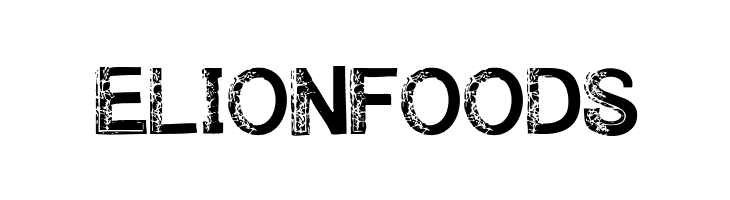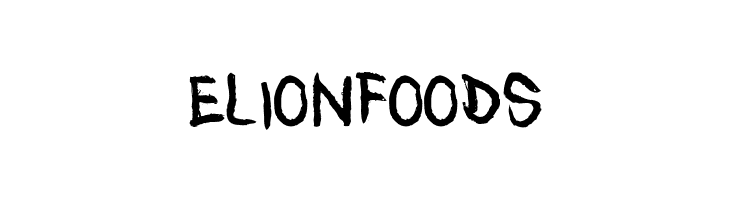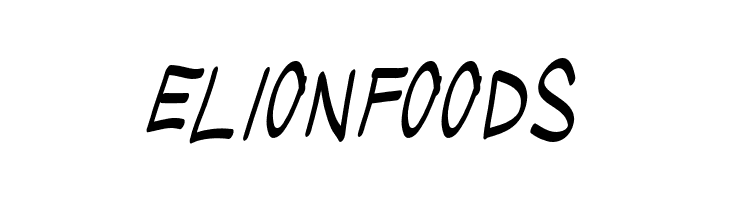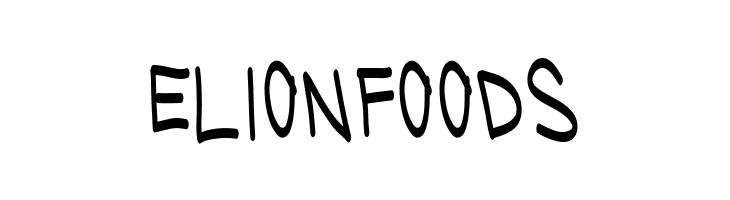
A bold, hand-drawn font with an expressive and textured style.
A bold, brush-style font with a hand-drawn, artistic appearance.
A playful, handwritten font with a bold, dynamic style and slight slant.
A playful, handwritten italic font with bold strokes and a lively style.
A playful, handwritten font with an italicized, dynamic style.
A playful, thin, italicized font with a hand-drawn, energetic style.
A playful handwritten font with a youthful and energetic vibe.
A playful, handwritten font with a quirky and informal style.
A playful, hand-drawn font with a whimsical and childlike style.